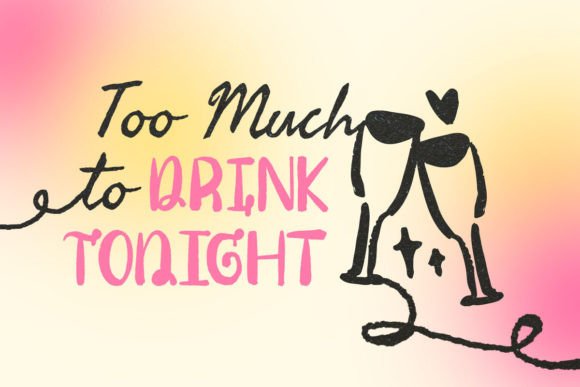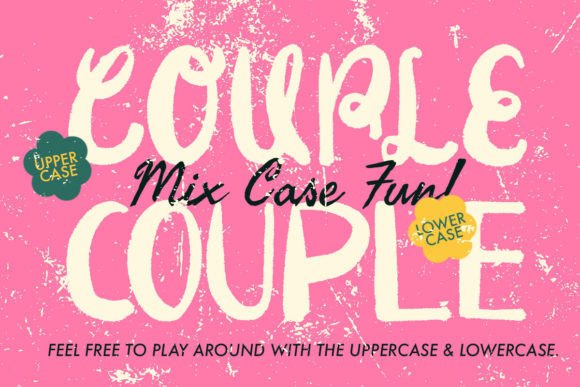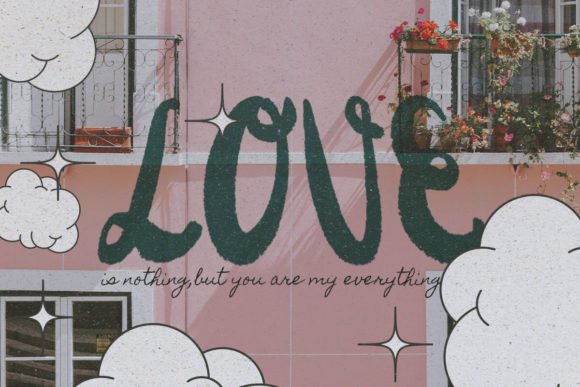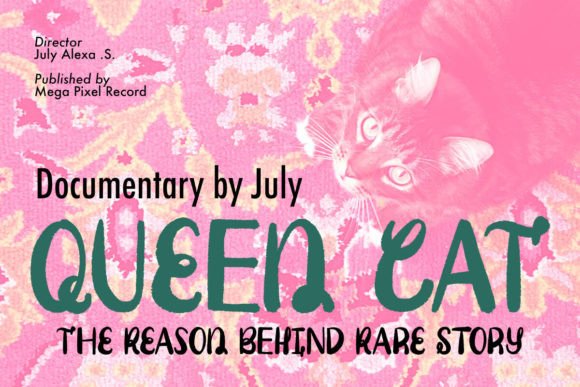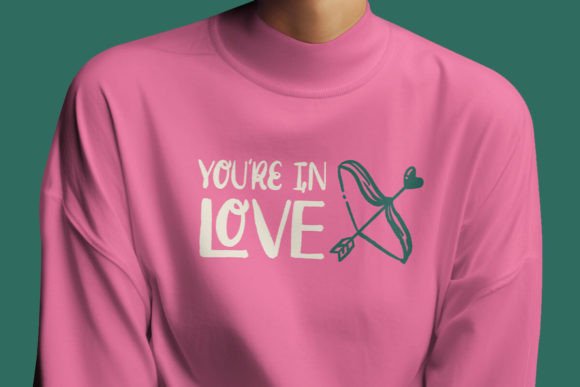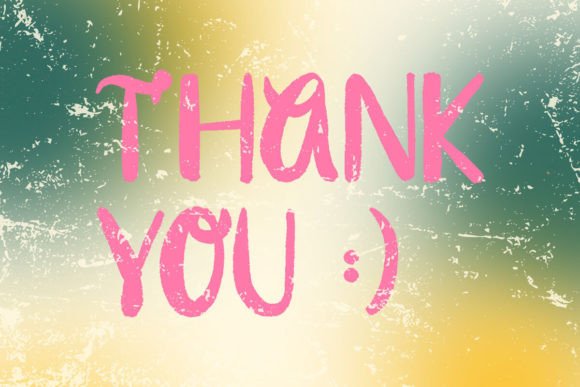
Introduction to Mymine Font
Nostalgic for 2000s texting.
Mixing uppercase and lowercase was the cool thing to do Wasn’t it fun.
Key Features of Mymine Font
Why Choose Mymine Font?
Mymine Font offers exceptional quality and versatility, making it a valuable addition to your design toolkit. Whether you’re creating for personal projects or commercial use, Mymine Font delivers professional results.